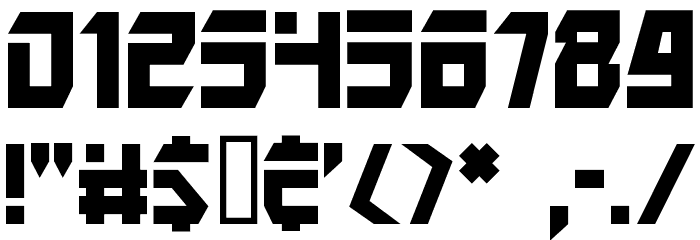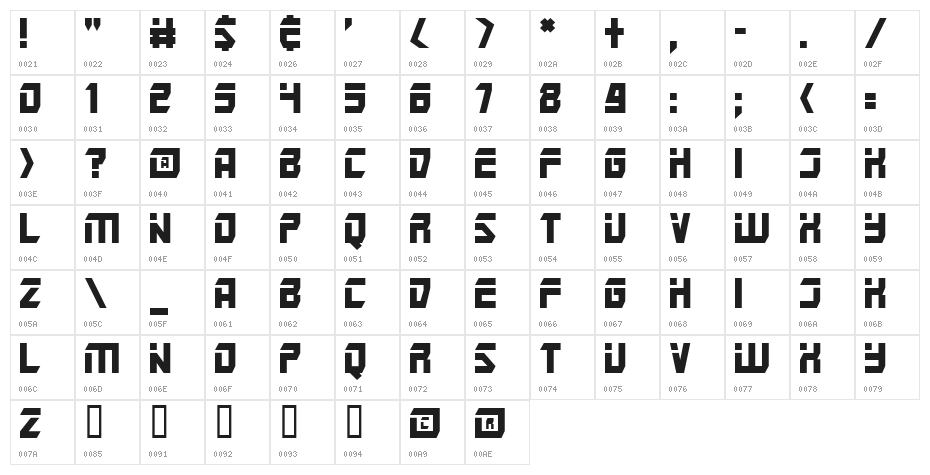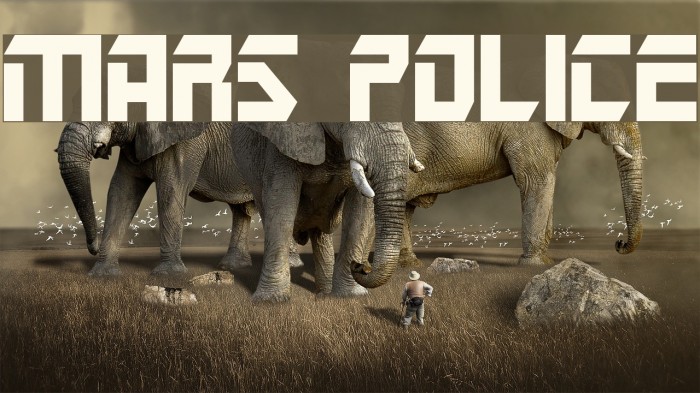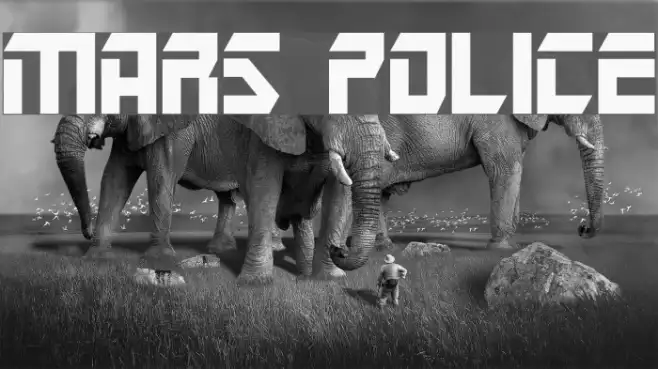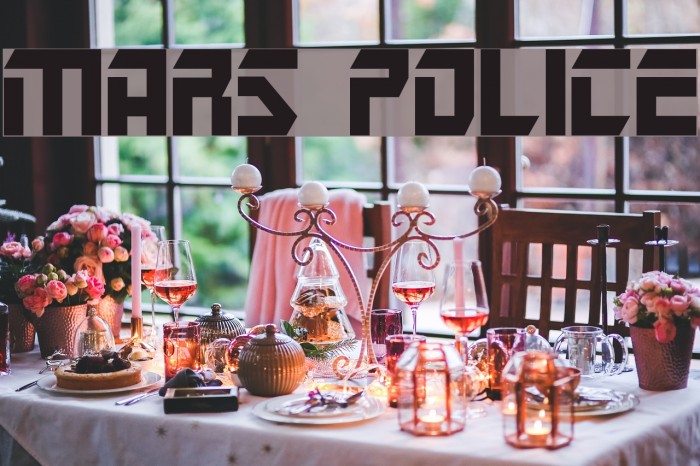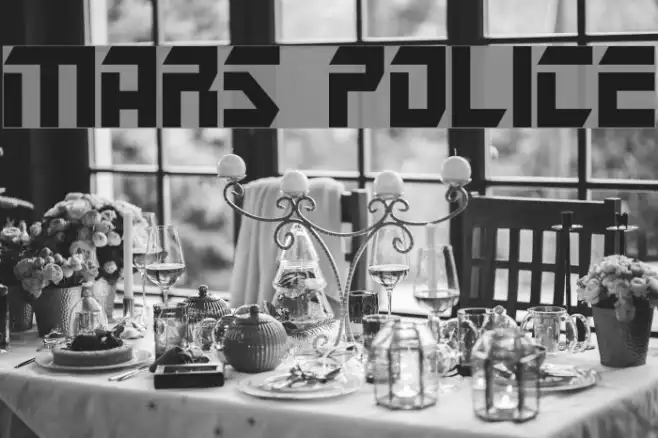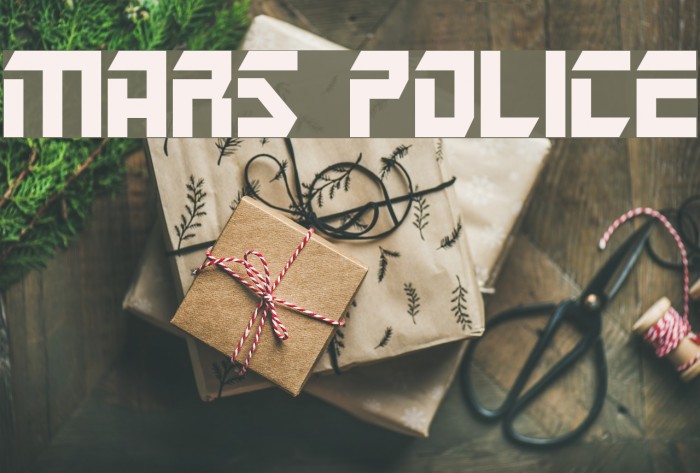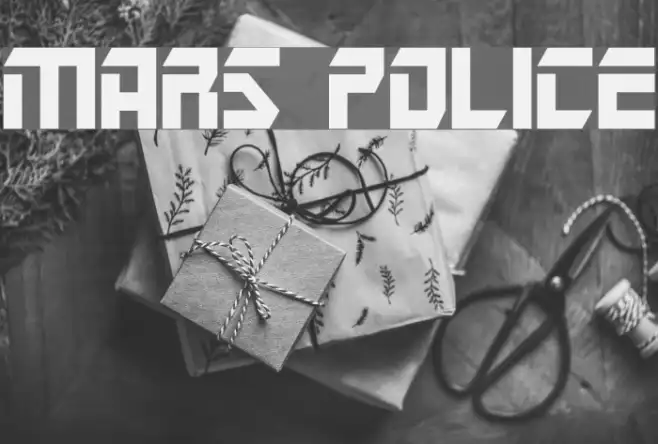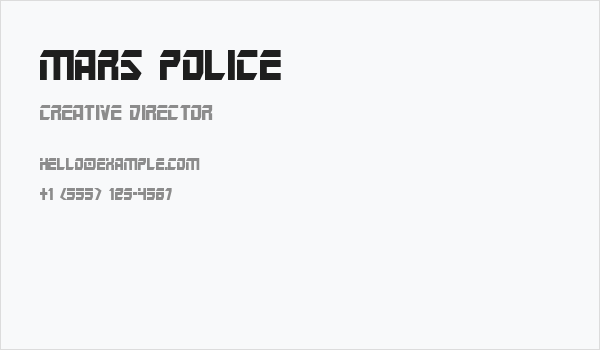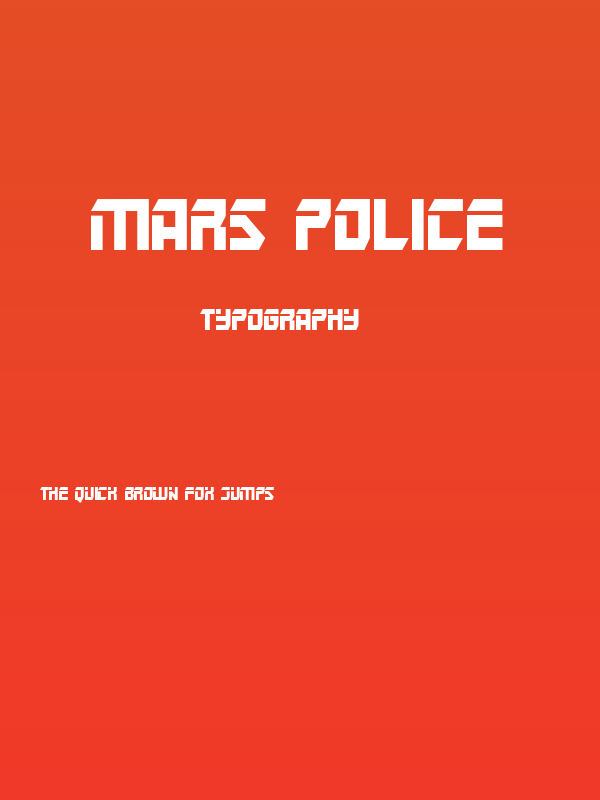
Mars Police Font
Mars Police Description
This font features a bold, futuristic design with sharp angles and geometric shapes. Each character is crafted with a distinct, blocky appearance, giving it a strong and impactful presence. The uppercase letters are particularly striking, with a uniform height and width that create a cohesive look. The lowercase letters maintain the same angular style, ensuring consistency throughout. Numbers and special characters are designed to match the boldness of the alphabet, making them suitable for attention-grabbing displays. The overall style is modern and edgy, perfect for projects that require a futuristic or tech-inspired aesthetic.
| Proposed Projects | Ideal for sci-fi themed posters, video game titles, tech branding, or any project needing a modern, edgy look. |